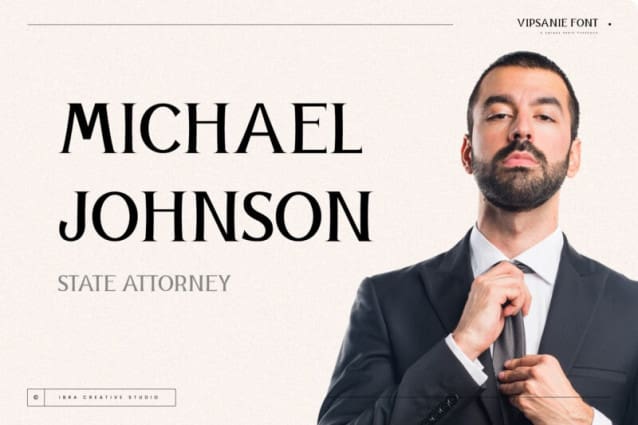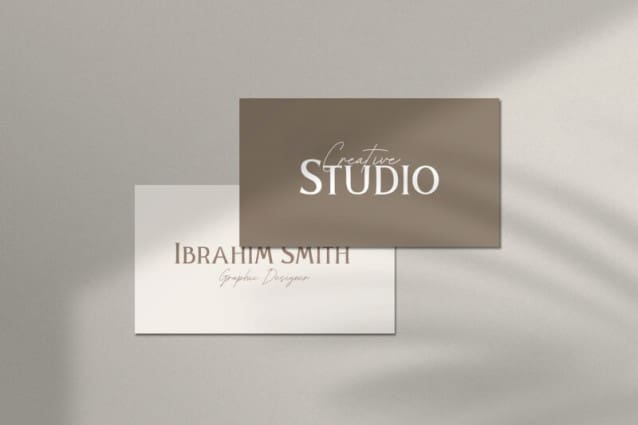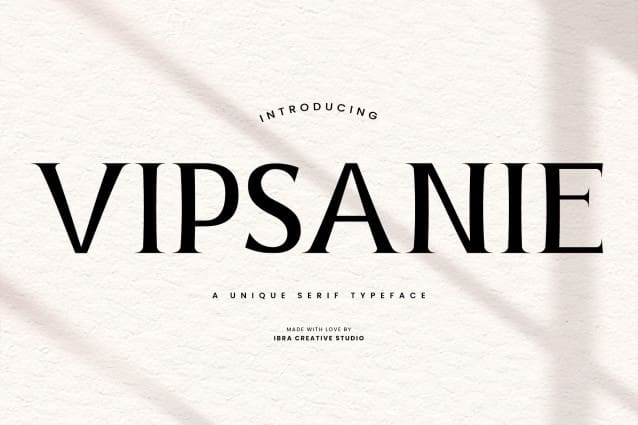
Vipsanie Font
Vipsanie Font is an unparalleled Unique Serif typeface that breaks away from conventional design norms to offer a distinctive typographic experience. Its letterforms intertwine classic serifs with innovative twists, resulting in a harmonious blend of tradition and modernity. Each character in Vipsanie is meticulously crafted, showcasing intricate details and unconventional strokes that captivate the eye and challenge typographic conventions. This one-of-a-kind typeface exudes a sense of sophistication and individuality, making it a standout choice for projects that demand a touch of originality and creative flair. Whether employed in editorial layouts, branding endeavors, or artistic expressions, Vipsanie’s unique charm and versatility make it a compelling addition to the design landscape.